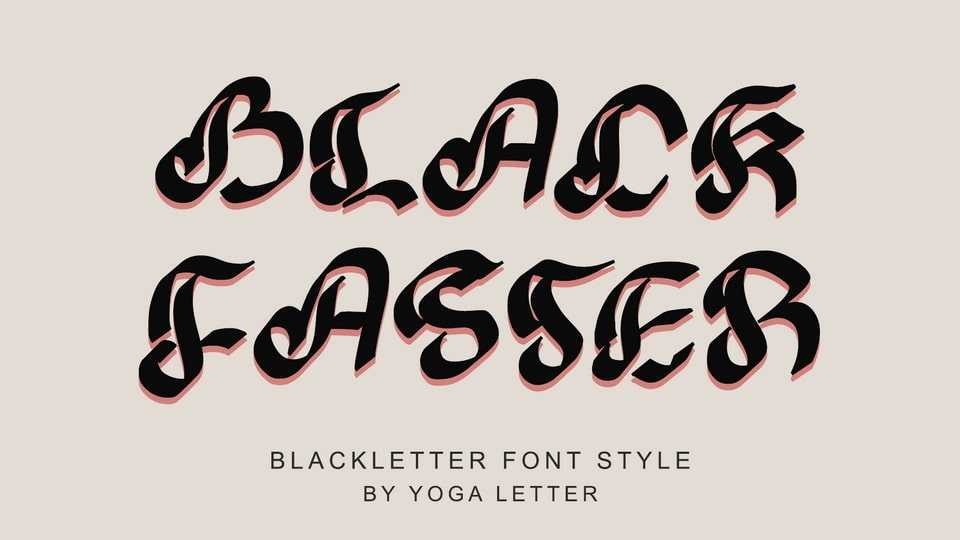
Download Black Faster font, a unique and elegant blackletter typeface. This font is equipped with uppercase, lowercase, numeral, punctuations and multilingual support.